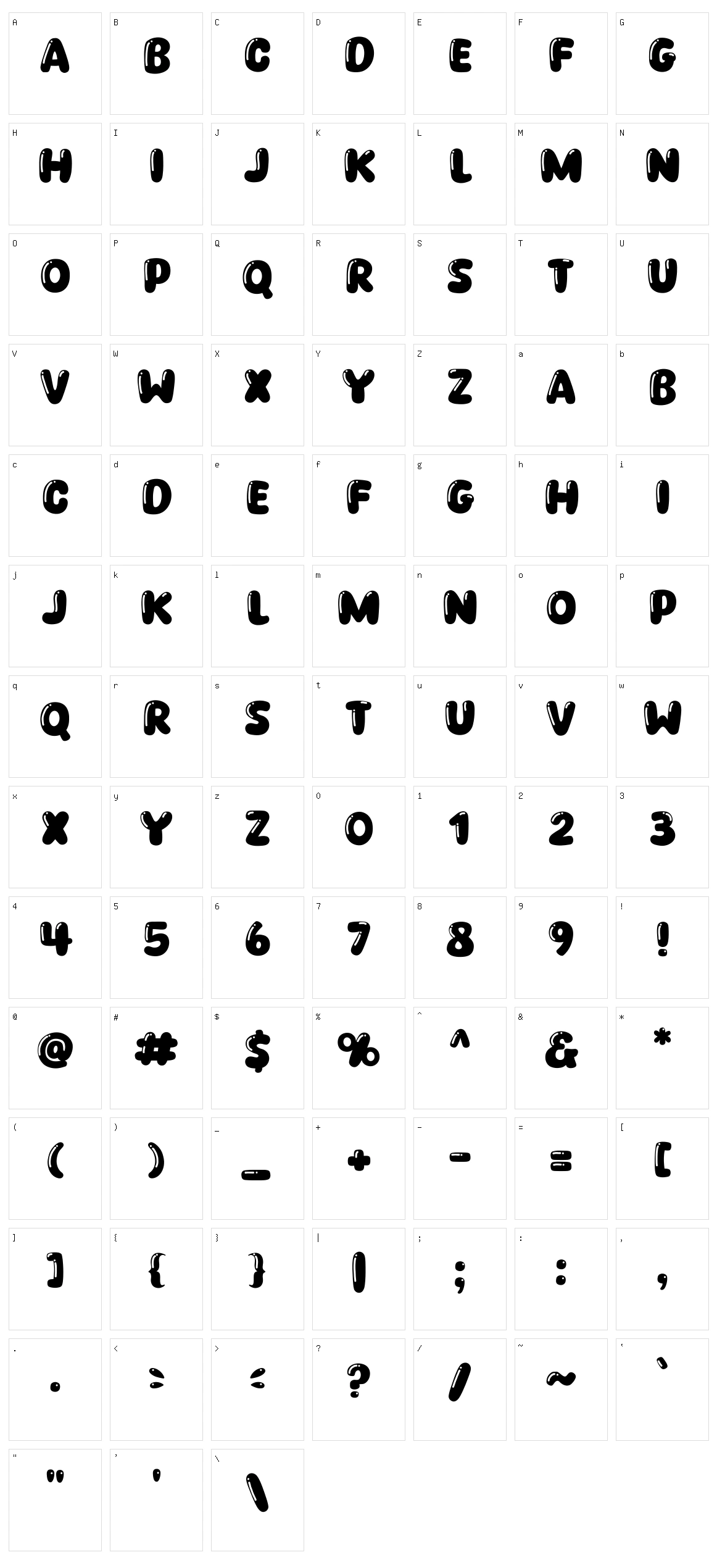
The free font Copyduck is carefully designed by Khurasan, showcasing a thoughtful balance of creativity and usability and falls under the Cartoon font style. When you download the ZIP file, it contains only 395 KB of font files, making it lightweight and quick to download. Please review the license details below to understand permitted usage and distribution rights. If license information is not available, we recommend using this font for personal projects only or contacting the author directly for commercial usage permissions.